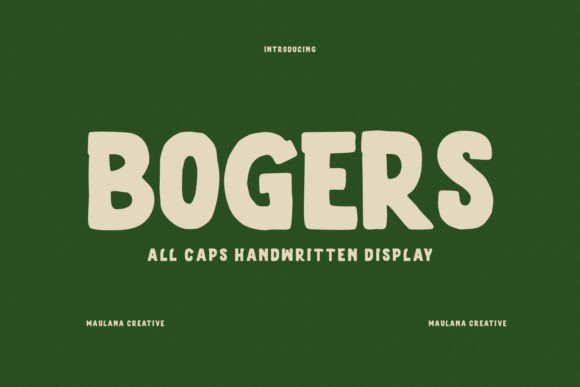
The Ultimate Guide to Bogers Font: Elevate Your Designs with Confidence
I’ll never forget the time I was working on a vintage-inspired project for a client, and I was struggling to find the perfect font to capture the essence of the era. The client wanted something bold, confident, and eye-catching, but I was coming up blank. That’s when I stumbled upon Bogers Font, and it was love at first sight! 💕
Bogers is a unique all-caps handwritten display font that exudes a strong, confident personality with striking details on each side of the lettering. Whether you’re creating a vintage-inspired project or want to add a bold classic look to your visuals, this font is a perfect choice.
An Honest Review of Bogers Font
What I Love About Bogers Font ✨
• 💯 Unique and eye-catching design: Bogers Font stands out from the crowd with its distinctive handwritten style and striking details.
• ✅ Highly versatile: This font can be used for a wide range of projects, from vintage-inspired designs to modern bold statements.
• 💫 Confident and bold personality: Bogers Font radiates confidence and energy, making it perfect for headlines, titles, and emphasis text.
• ⚠️ Limited use for body text: Due to its bold and decorative nature, Bogers Font may not be the best choice for large blocks of body text.
• 🤔 Some letters may require manual kerning: As with any font, some letters may require manual kerning to achieve optimal spacing and readability.
The Backstory of Bogers Font
Bogers Font was designed with the intention of creating a bold, confident font that would evoke a sense of nostalgia and timelessness. The designer aimed to craft a font that would be perfect for headlines, titles, and emphasis text, while still being legible and easy to read.
Q: What type of projects is Bogers Font best suited for?
A: Bogers Font is perfect for vintage-inspired projects, bold statements, and emphasis text. It’s ideal for designers, crafters, and creative hobbyists who want to add a touch of confidence and personality to their designs.
Q: Can I use Bogers Font for body text?
A: While Bogers Font is a beautiful font, it may not be the best choice for large blocks of body text due to its bold and decorative nature.
Q: Does Bogers Font come with OpenType features?
A: Yes, Bogers Font comes with a range of OpenType features, including glyphs, stylistic alternates, and ligatures.